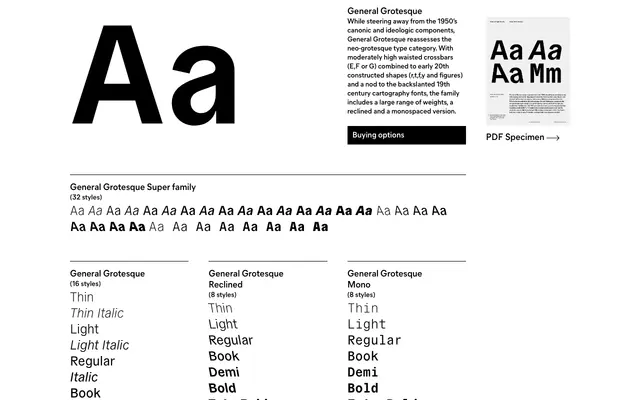
General Grotesque specimen from General Type Studio
A 32-style neo-grotesque superfamily that critiques its own category through high-waisted crossbars, early 20th-century constructed details and a backslanted reclined subfamily borrowed from 19th-century cartography.
Rather than reprising canonical 1950s neo-grotesques such as Helvetica, this family introduces moderately high-waisted crossbars on E, F and G alongside constructed forms on r, t, f, y and the numerals. The superfamily spans three subfamilies: a standard upright-and-italic set across eight weights, a Reclined variant drawing on 19th-century backslanted cartographic lettering, and a Mono cut sharing the same eight weights. OpenType alternates include single-storey a and g, an alternate y, oldstyle figures and a slashed zero.
Described explicitly as a reassessment of the neo-grotesque category, combining moderately high waisted crossbars with early 20th-century constructed letterforms and a nod to 19th-century backslanted cartography fonts.